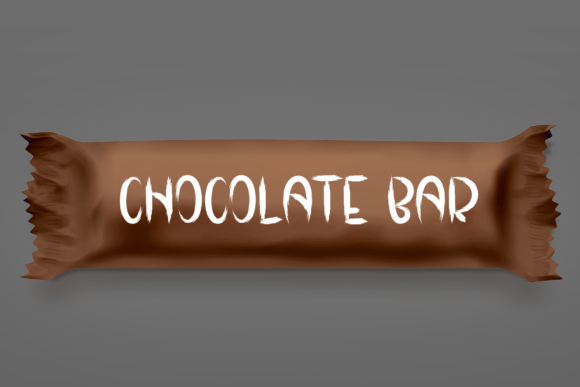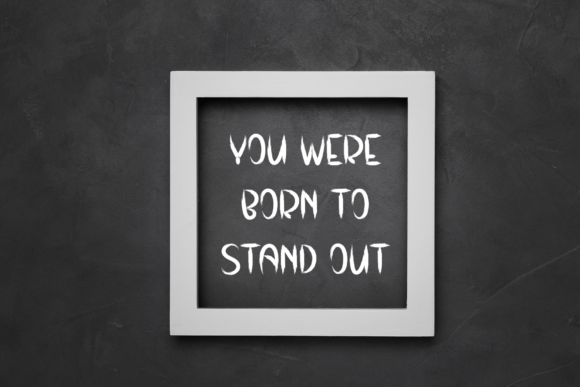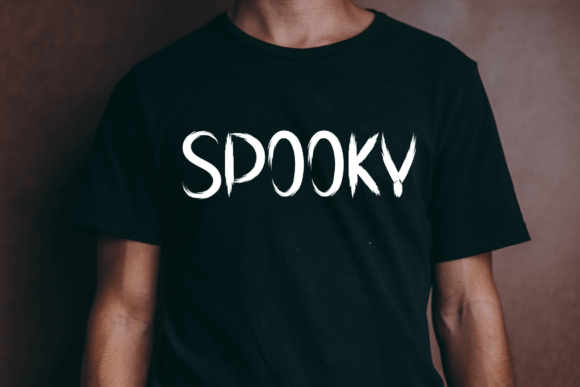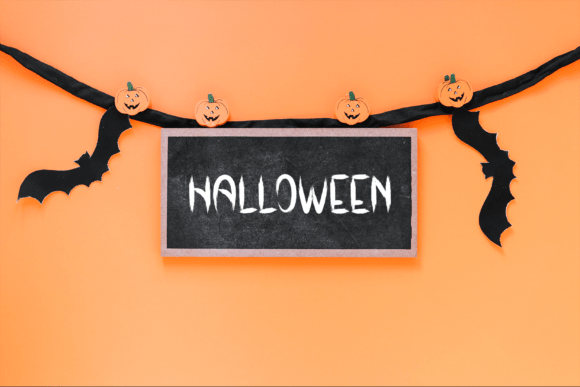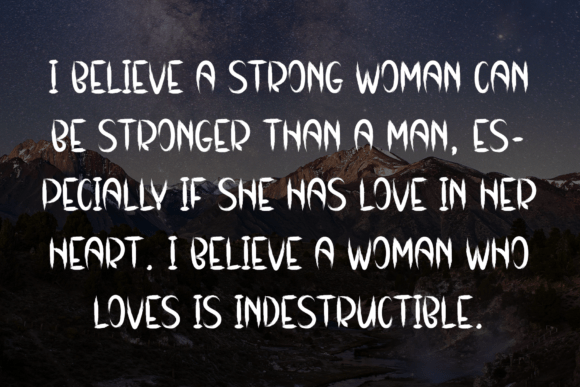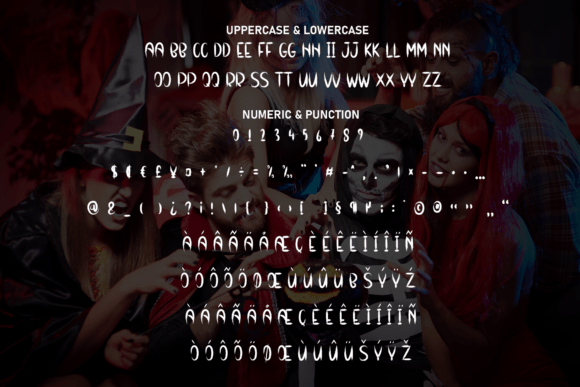
Introduction to Party Ghost Font
Embark on a creative journey with this affectionate and congenial handwritten display font.
Radiating an endearing vibe, this font is the quintessential choice for crafting delightfully appealing wedding invitations or cards It’s also the perfect option for any design project craving for a sprinkle of fun and whimsy.
Key Features of Party Ghost Font